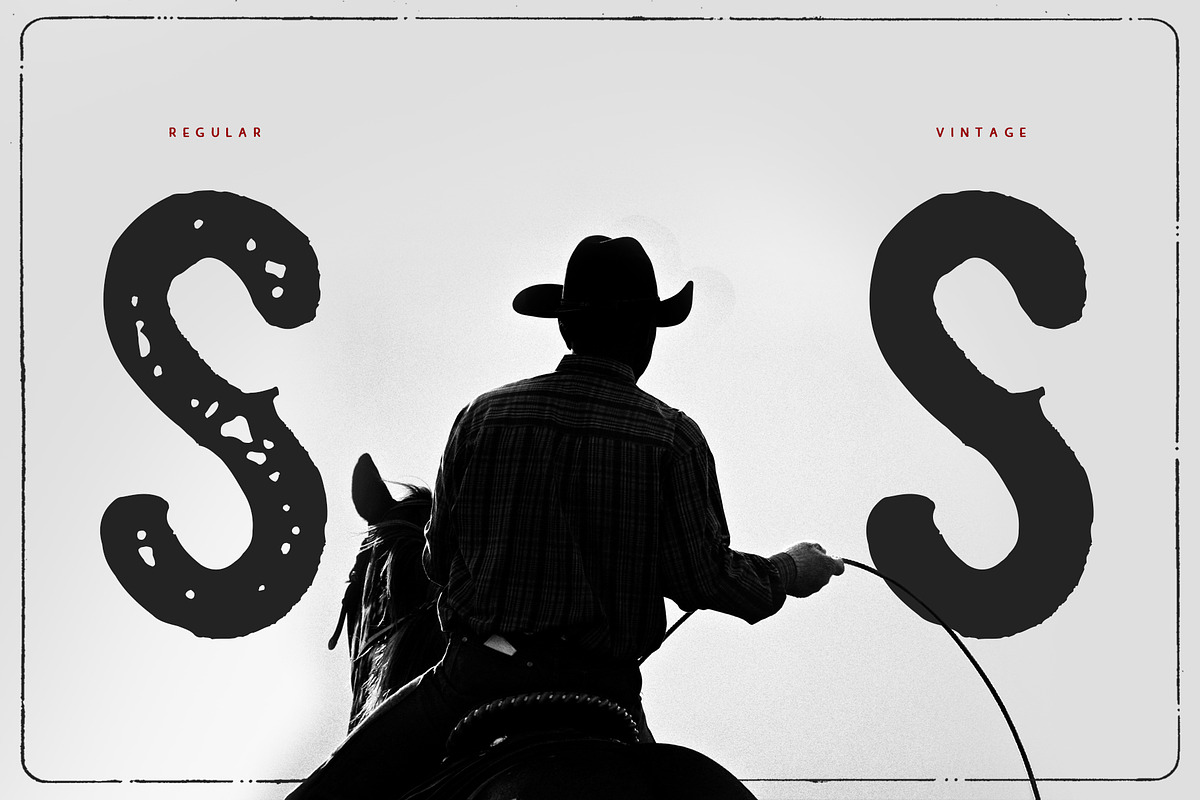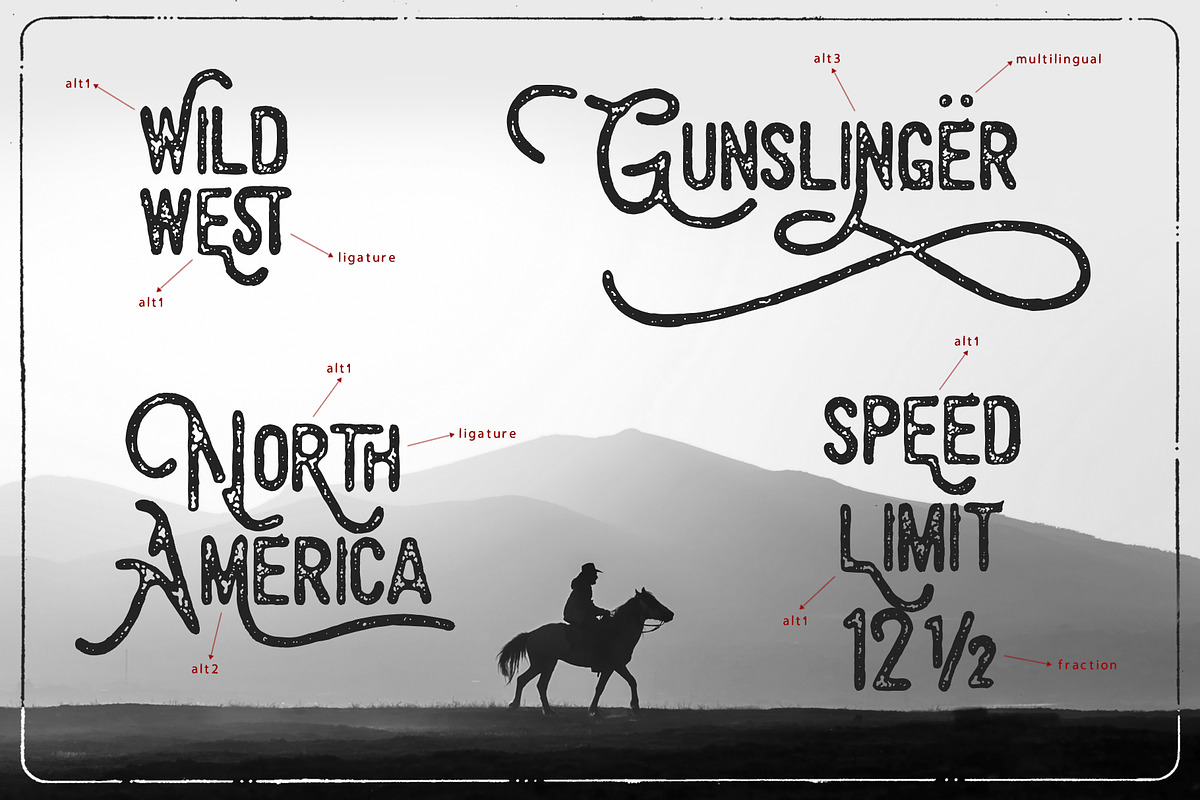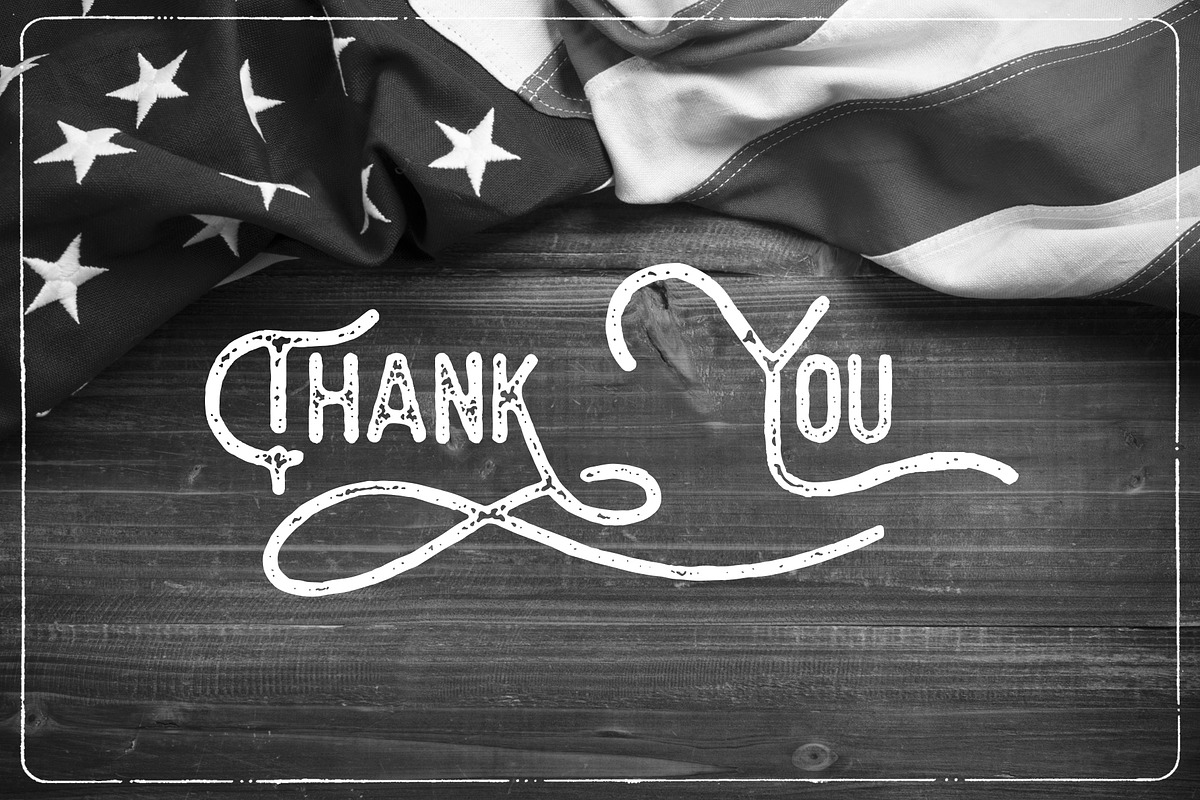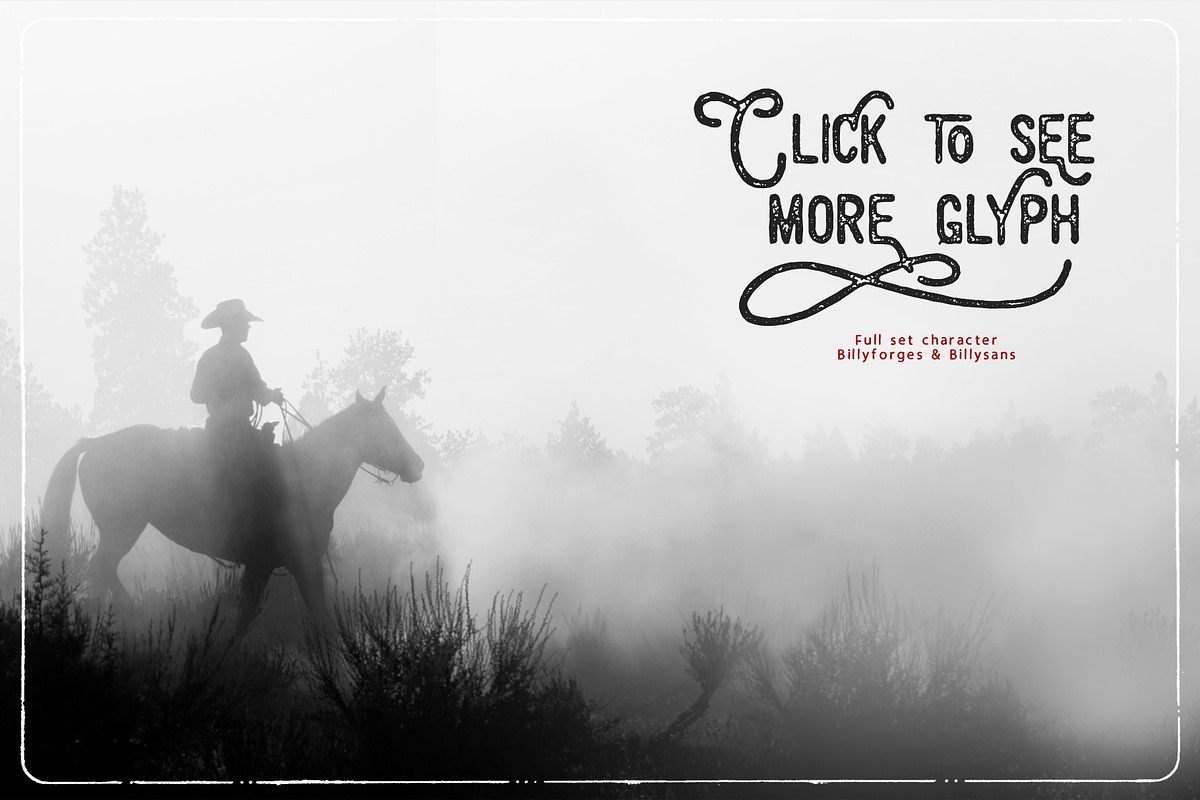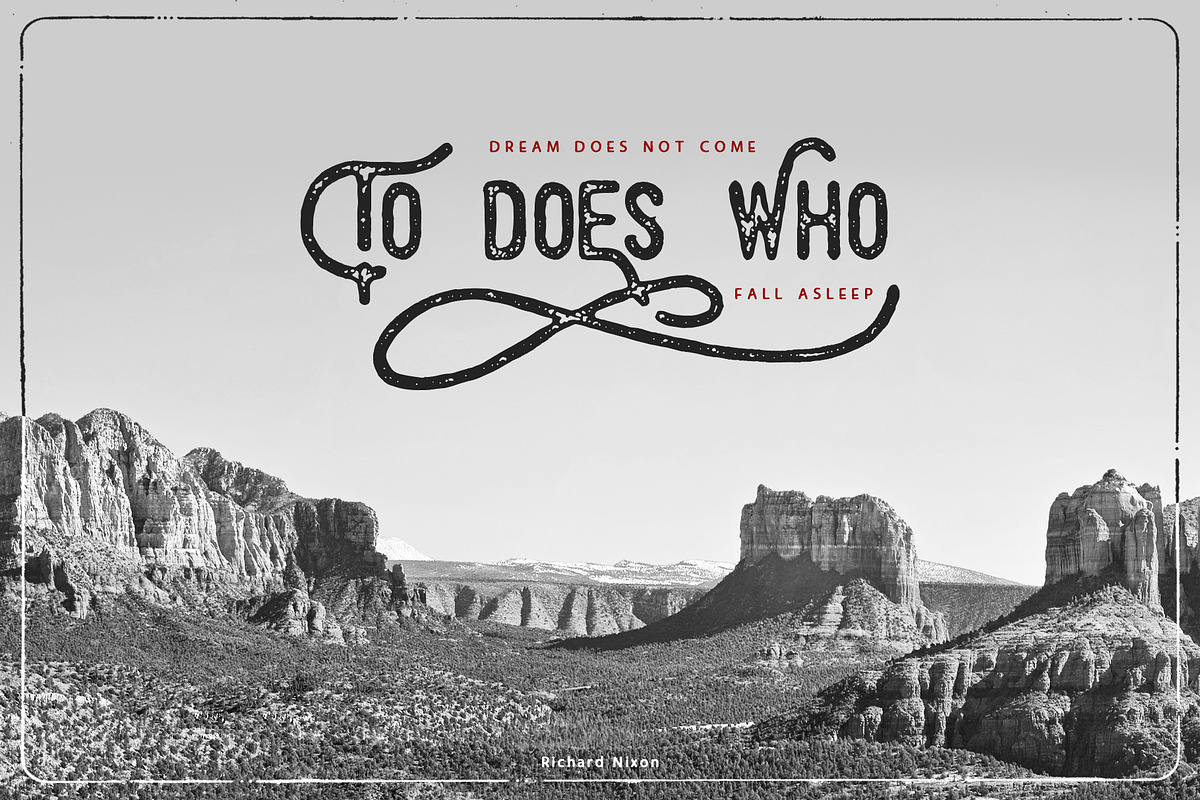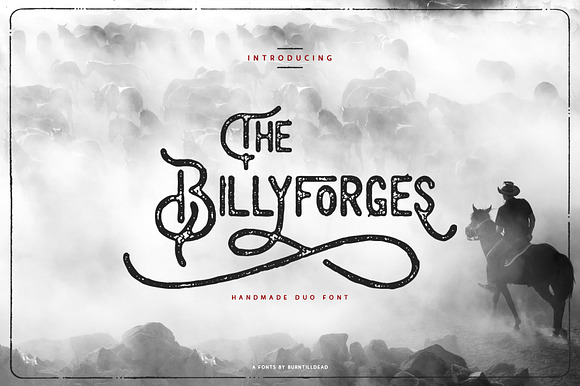
Billyforges - Duo Fonts
Say Hi to American vintage fonts Billyforges. A hand made duo fonts that bring classic western vibes.
Why should you have this Billyforges packages? In addition to get many unique character, thousand possibilities of your design/logo, you also may access multilingual language and get closed to native vibe.
Character Set A-Z & a-z
Numerals, Punctuations & Fraction (OpenType Standard)
Accents (Multilingual characters)
Stylistic Alternates (alt1)
Stylistic Alternates (alt2)
Stylistic Alternates (alt3)